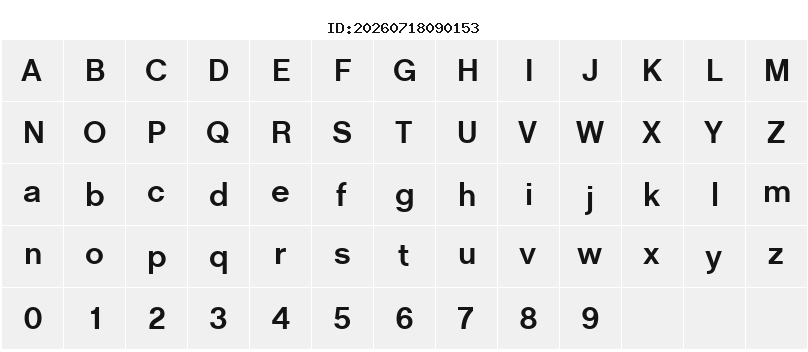
• Font Name: ChaletBook
• Designer: House Industries
• Description: Created for the House Book.
About ChaletBook.ttf
ChaletBook.ttf is a modern, elegant sans-serif font designed for ultimate readability and visual harmony. Perfect for branding, headlines, web design, and print materials.